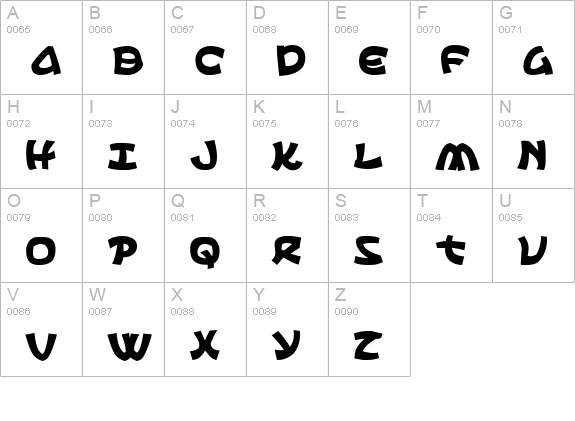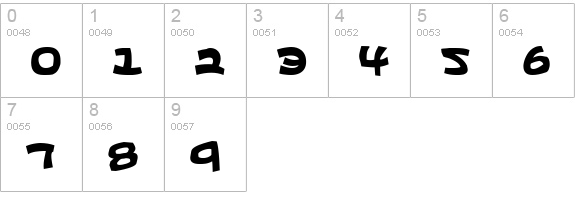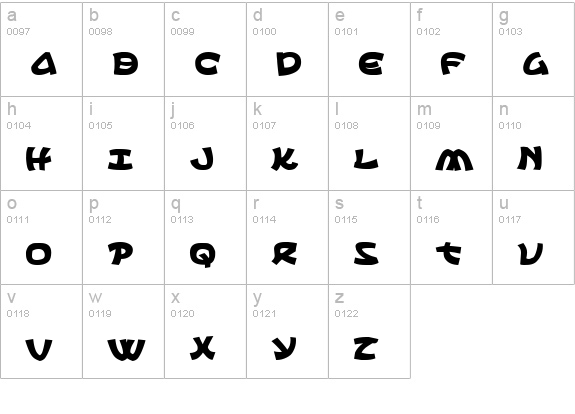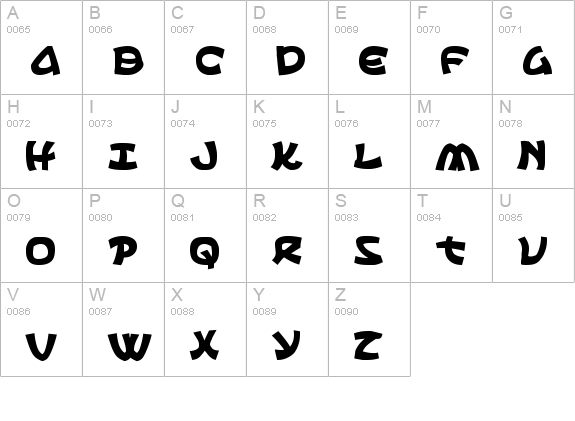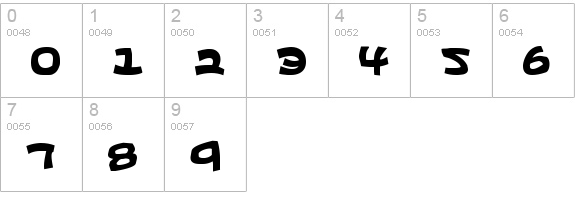
Ephesian Bold is a strong, high-contrast variant in the Ephesian typeface family \xE2\x80\x94 well suited to headlines, attention-grabbing titles, and strong calls-to-action.
Ephesian Bold font is a stunning display typeface that exudes elegance and sophistication. With its bold and commanding presence, this font is perfect for making a statement in headlines, titles, logos, and more. The sleek lines and distinct letterforms of Ephesian Bold make it a versatile choice for a wide range of design projects. What sets Ephesian Bold font apart is that it is not only visually striking but also completely free to download. Yes, you read that right - you can easily access this premium font at no cost on FontsMarket.com. Whether you are a professional designer looking to add a touch of luxury to your work or a hobbyist seeking a bold and impactful typeface for personal projects, Ephesian Bold font is an excellent choice that won't break the bank. Download it today and elevate your designs with this exquisite font.